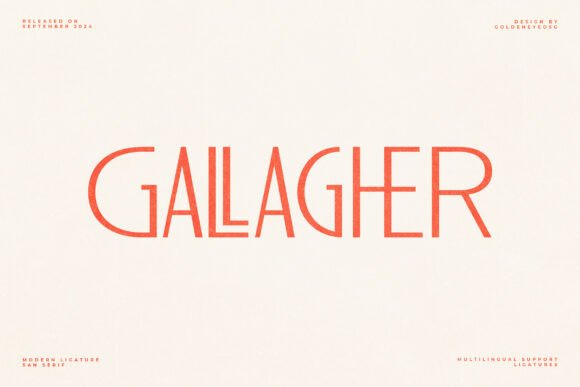
Gallagher
The first time I saw Gallagher, it felt like a quiet confidence. Clean, unassuming, yet full of potential. It’s a sans serif typeface that doesn’t shout but speaks with clarity and purpose. The letters are well-proportioned, with subtle curves that add character without overwhelming the structure. It’s not the kind of font you’ll notice immediately, but once you start working with it, you’ll find it has a strong presence in the right context.
I’ve used Gallagher in a few client projects recently, and it’s been a reliable choice for branding and marketing materials. Its neutral tone makes it versatile enough to fit into both modern and traditional designs. It’s especially effective when paired with other fonts—whether it's a bold serif for contrast or a script for flair. But Gallagher isn’t just about pairing; it has its own personality that can carry a project on its own.
In logo design, Gallagher works best when used as a supporting element rather than the sole face. It’s great for brand marks that need a clean, professional look. I’ve seen it used in logos for tech startups and creative agencies alike, where its simplicity helps the brand feel approachable and trustworthy. However, I wouldn’t recommend using Gallagher as the primary font in a logo unless the brand is very minimalistic. It lacks the visual weight needed for more complex brand identities.
For packaging design, Gallagher brings a sense of sophistication. It’s ideal for premium products that want to convey quality and reliability. I tested it on a mockup for a luxury skincare line, and it held up well against high-end visuals. The letterforms are clear and legible, even at smaller sizes, which is crucial for product labels. That said, I’d caution against using Gallagher for long blocks of text on packaging. It’s better suited for short phrases, taglines, or decorative accents.
When it comes to web design, Gallagher is a solid choice. It renders well across platforms and maintains its integrity in different screen sizes. I’ve used it in website headers and blog graphics, and it consistently delivers a professional look. However, I always test it in black and white to ensure it remains readable under all conditions. Small-size readability is another key factor—Gallagher holds up well, but it’s not the most compact sans serif out there.
In social media graphics, Gallagher shines as a display font. It adds a touch of elegance to Instagram posts, Facebook banners, and Twitter threads. I’ve used it for quotes and headlines, where its clean lines make the content feel more intentional. But I’ve also noticed that Gallagher can be a bit too subtle for some digital ads. If the goal is to grab attention quickly, it might not be the best fit. Still, for more refined campaigns, it’s a great option.
One of my favorite uses for Gallagher has been in editorial design. It pairs well with other fonts, especially when used in combination with a serif typeface for contrast. I’ve used it in magazine layouts and newsletter headers, where its neutrality allows the rest of the design to stand out. It’s also excellent for printable design, whether it’s for brochures, posters, or flyers. The spacing and proportion make it easy to read in print, which is a big plus for designers who work across mediums.
That said, Gallagher isn’t without its limitations. It’s not the most expressive font, so it might not be the best choice for creative or artistic projects. If you’re looking for something more playful or decorative, Gallagher might fall short. However, if your project requires a clean, professional look, it’s hard to beat.
Another thing to consider is font pairing. Gallagher works best when paired with fonts that have a contrasting style. A bold serif can provide the necessary contrast, while a script font can add a touch of personality. I’ve also found that pairing Gallagher with a handwritten font can create an interesting balance, though it’s important to maintain visual harmony.
Overall, Gallagher is a font that deserves a place in any designer’s toolkit. It’s not flashy, but it’s reliable. It’s not the most unique typeface, but it’s incredibly functional. Whether you’re designing a logo, creating social media graphics, or working on a print campaign, Gallagher offers a dependable and elegant solution.
If you’re looking for a font that balances professionalism with approachability, Gallagher is worth considering. Just remember to test it thoroughly and use it wisely. After all, the best fonts are those that serve the project, not the other way around.